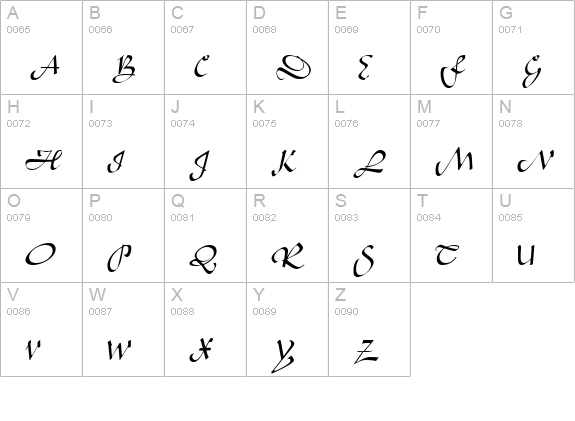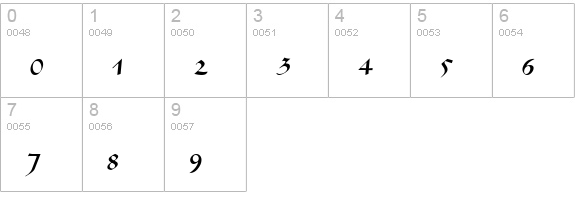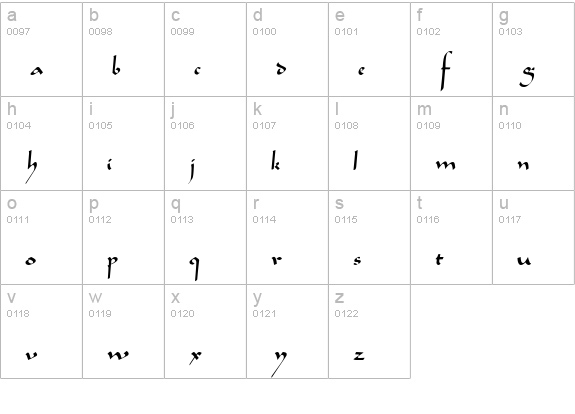
Semia Script SSi Font Details
Semia Script SSi font is a beautifully crafted typeface that combines elegance and sophistication with a touch of playfulness. With its flowing and graceful letterforms, this font is perfect for adding a touch of charm to any design project. Whether you are designing wedding invitations, greeting cards, or branding materials, Semia Script SSi font will bring a sense of class and style to your work. The smooth and curvaceous strokes of each letter create a harmonious flow, making it a joy to read and use. What makes Semia Script SSi font even more appealing is that it is available for free. You can easily download it from FontsMarket.com, a trusted source for high-quality fonts. This means that you can add this stunning typeface to your collection without spending a dime. The versatility of Semia Script SSi font allows it to be used in various contexts. Its timeless elegance makes it suitable for both traditional and modern designs. It can be used for headlines, body text, logos, or any other creative application you can think of. Semia Script SSi font is designed with precision and attention to detail, ensuring that each character is visually appealing and easy to read. Its legibility and clarity make it a reliable choice for both print and digital projects. So, whether you are a professional designer or a hobbyist looking to add a touch of sophistication to your creations, Semia Script SSi font is the perfect choice. Download it for free at FontsMarket.com and elevate your designs with this stunning typeface.